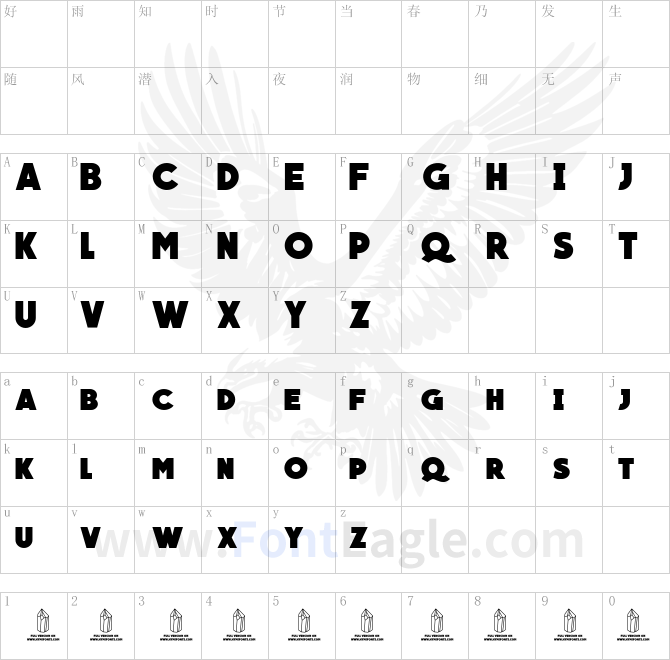
- Font name:QUARTZO
QUARTZO-Bold is a great font, widely used in graphic design, single-page menu design, poster design and other fields, and is deeply loved by designers.QUARTZO-Bold download.